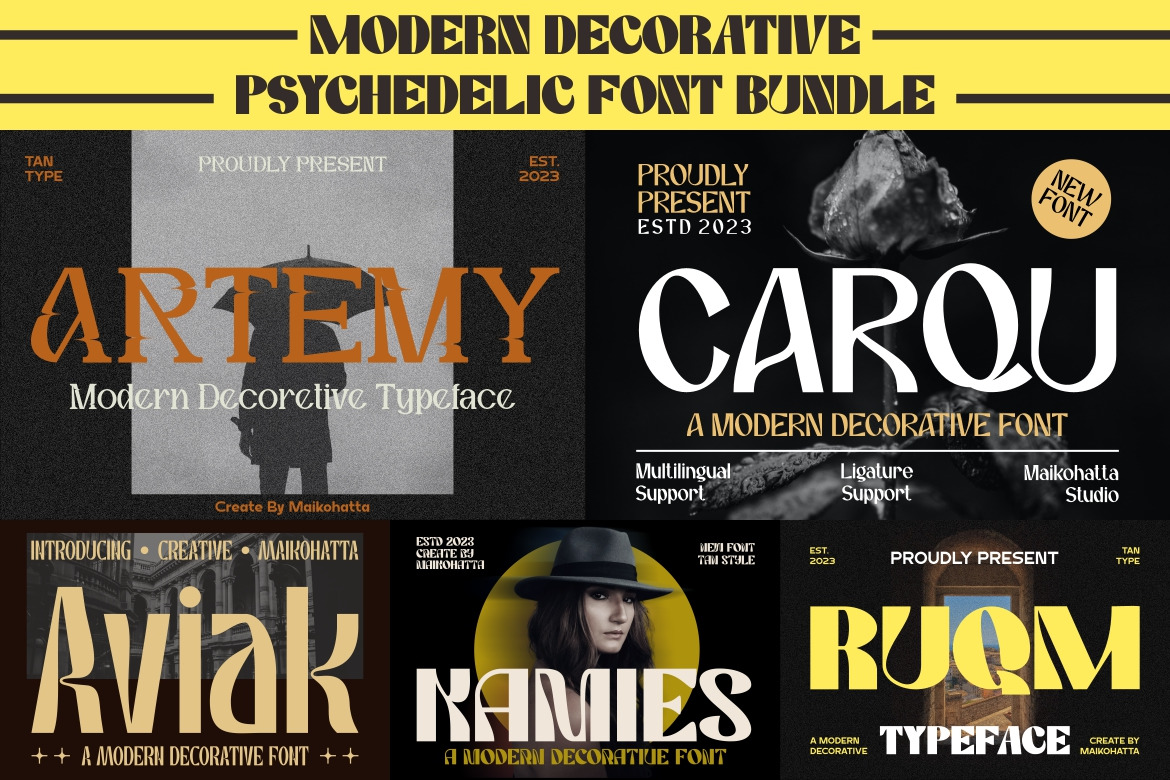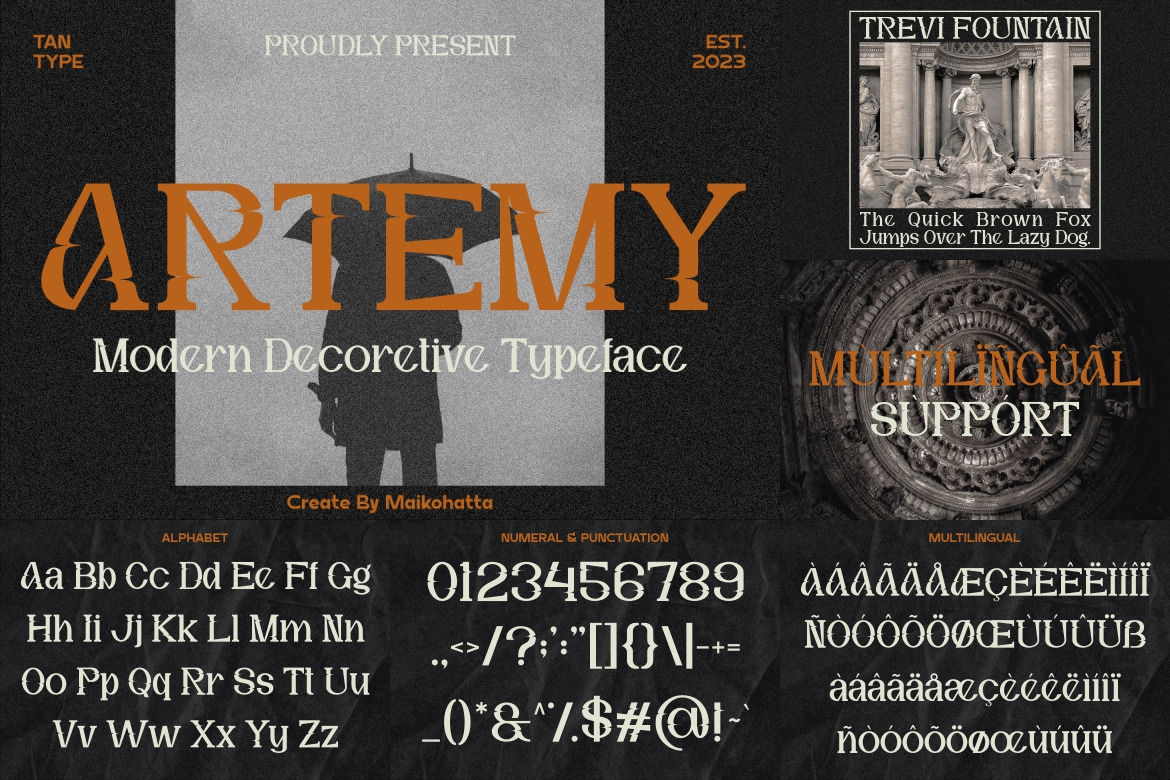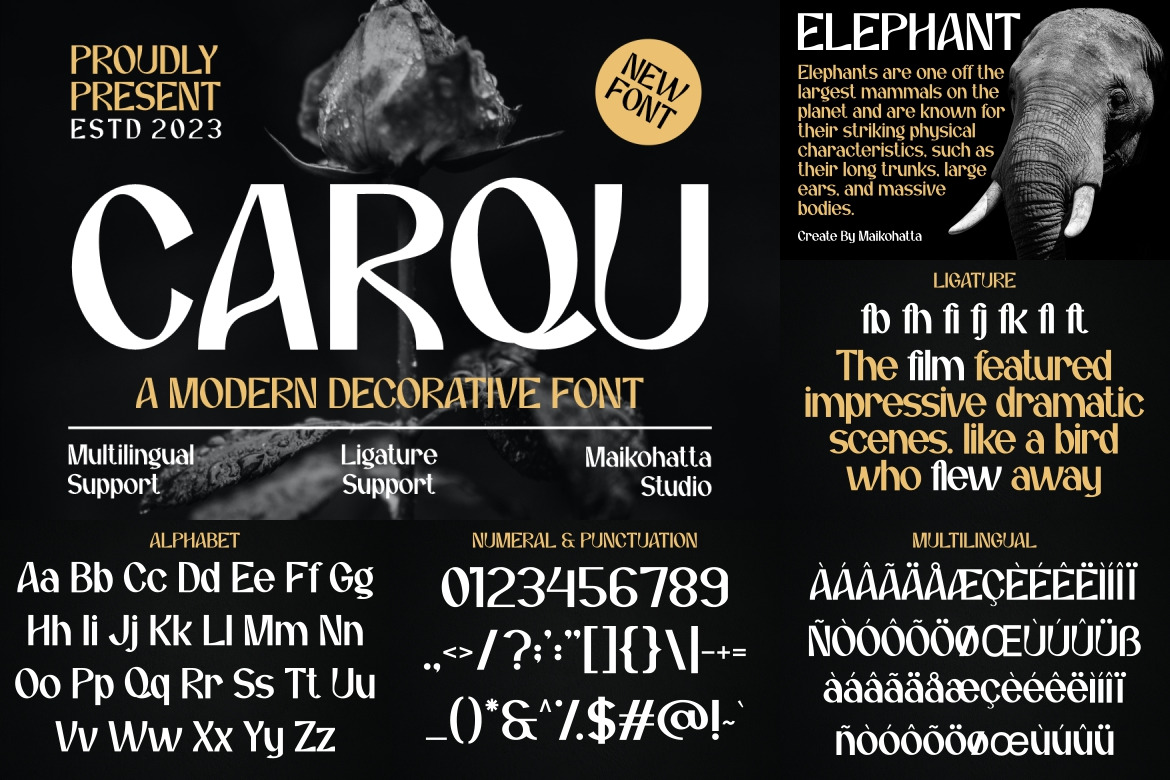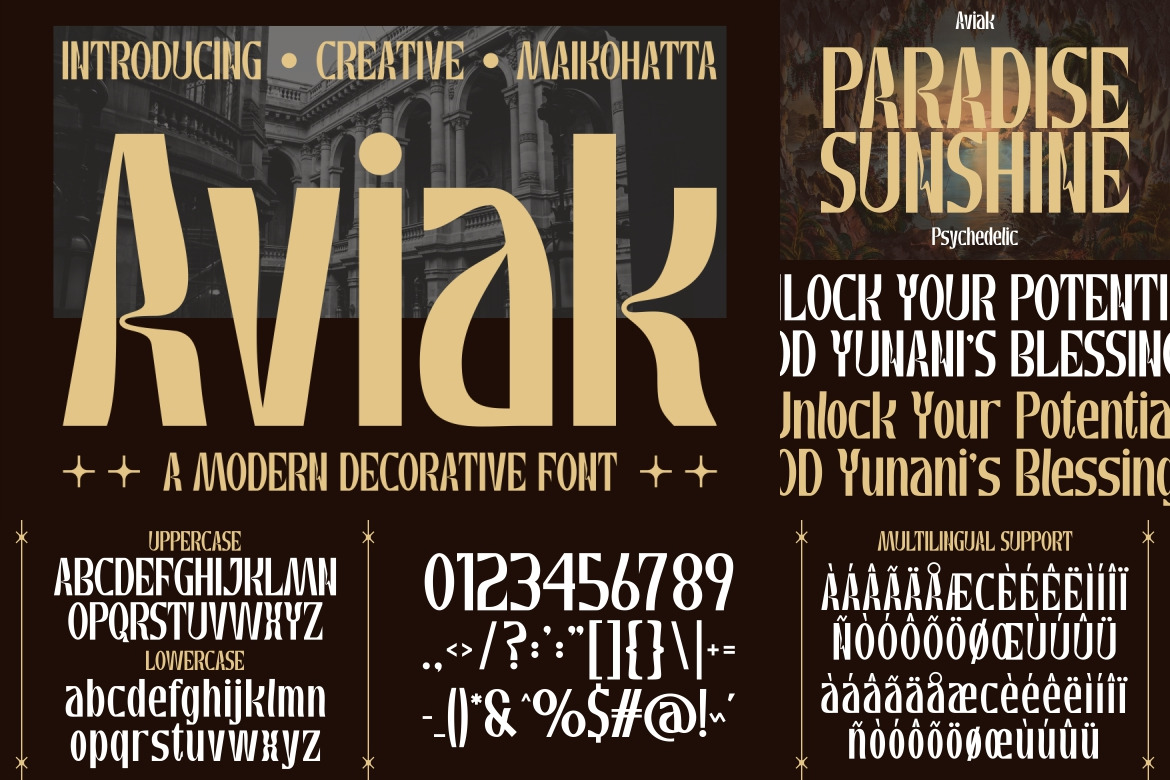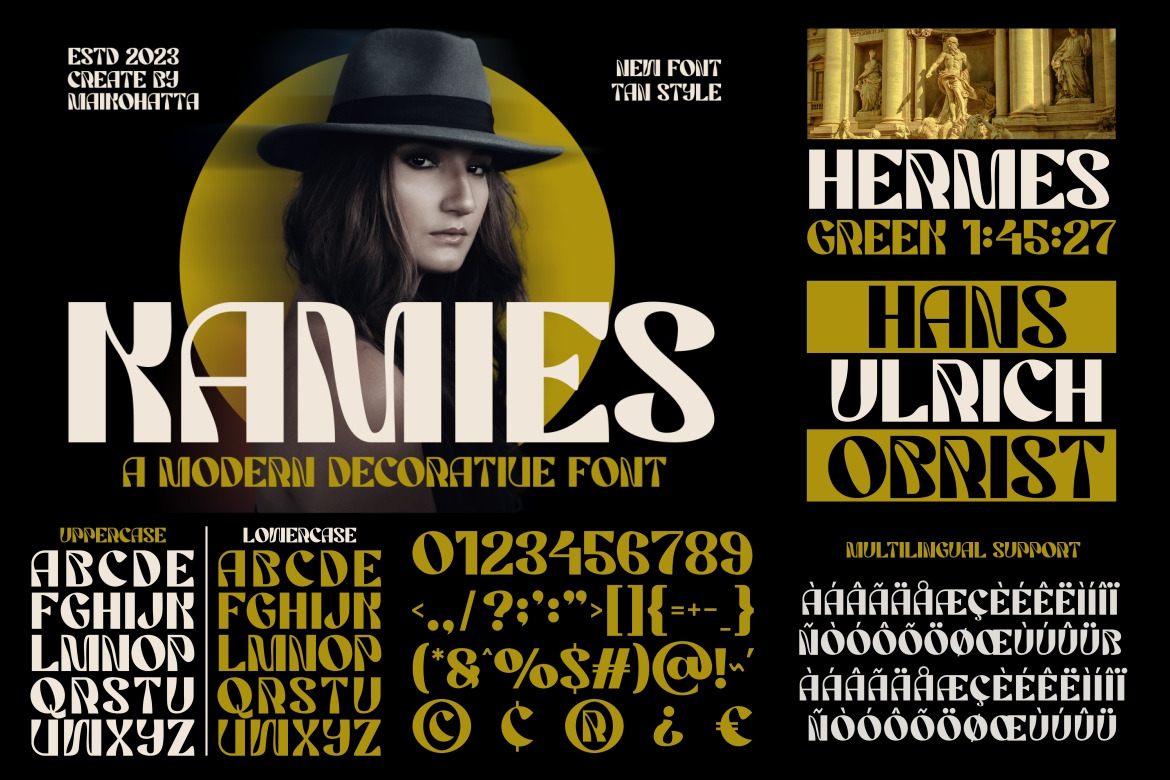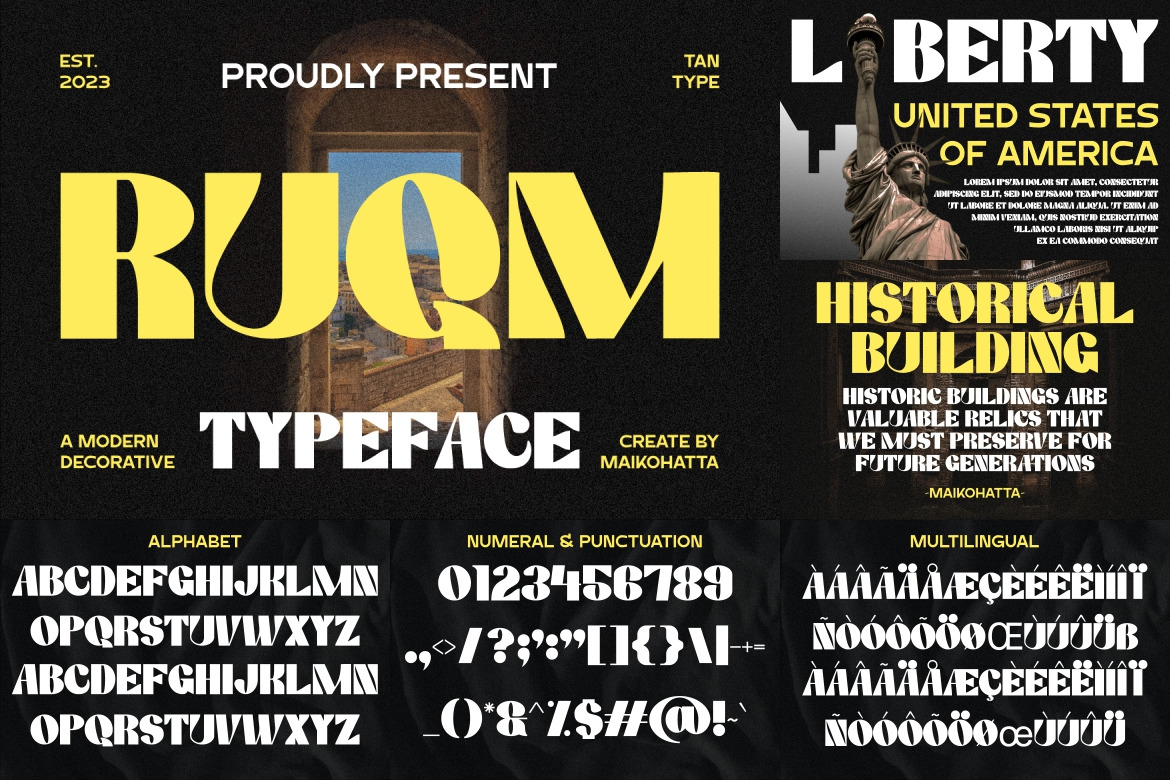
Modern Decorative Psychedelic Font Bundle
This font has energetic and abstract characteristics with a contemporary design perspective, offering a captivating visual experience, making it a valuable tool for designers who want to infuse their projects with a sense of adventure and creative experimentation. Psychedelic style is a creative and expressive typeface, often combining artistic elements, colors, and eye-catching designs. This font is commonly used in graphic designs, posters, art, and promotional materials that want to create a striking, experimental, or unique visual appearance.
* Uppercase
* Lowercase
* Multilingual
* Ligature ( Carrqu )